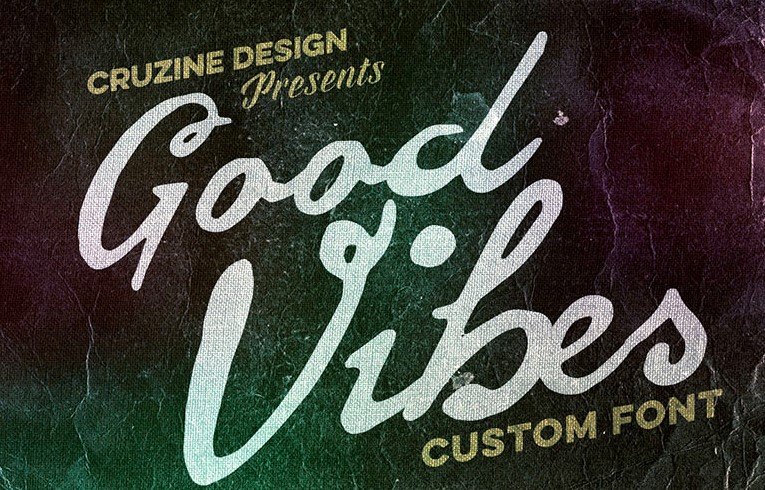
The font has energetic look and designing a layout which allows you to designs any designs perfectly with confidence. It has a versatile library of styles and
Introducing the best-scripted typeface that is Good Vibes Font which is one of the unique typefaces is Good Vibes Font which contains high-quality handwritten typeface which was designed and shared by Cruzine Designs Studio and provided for the graphic creators to use for their professional reason for free.
The font has energetic look and designing a layout which allows you to designs any designs perfectly with confidence. It has a versatile library of styles and features. Also, it has more than hundreds of beautiful punctuations and ligatures.
You can easily utilize this awesome typeface as pairing with abel font for classical images and posters. Because of its heavy strokes, it is best for attractive and stylish designs. We suggest you to download it immediately and start using it.